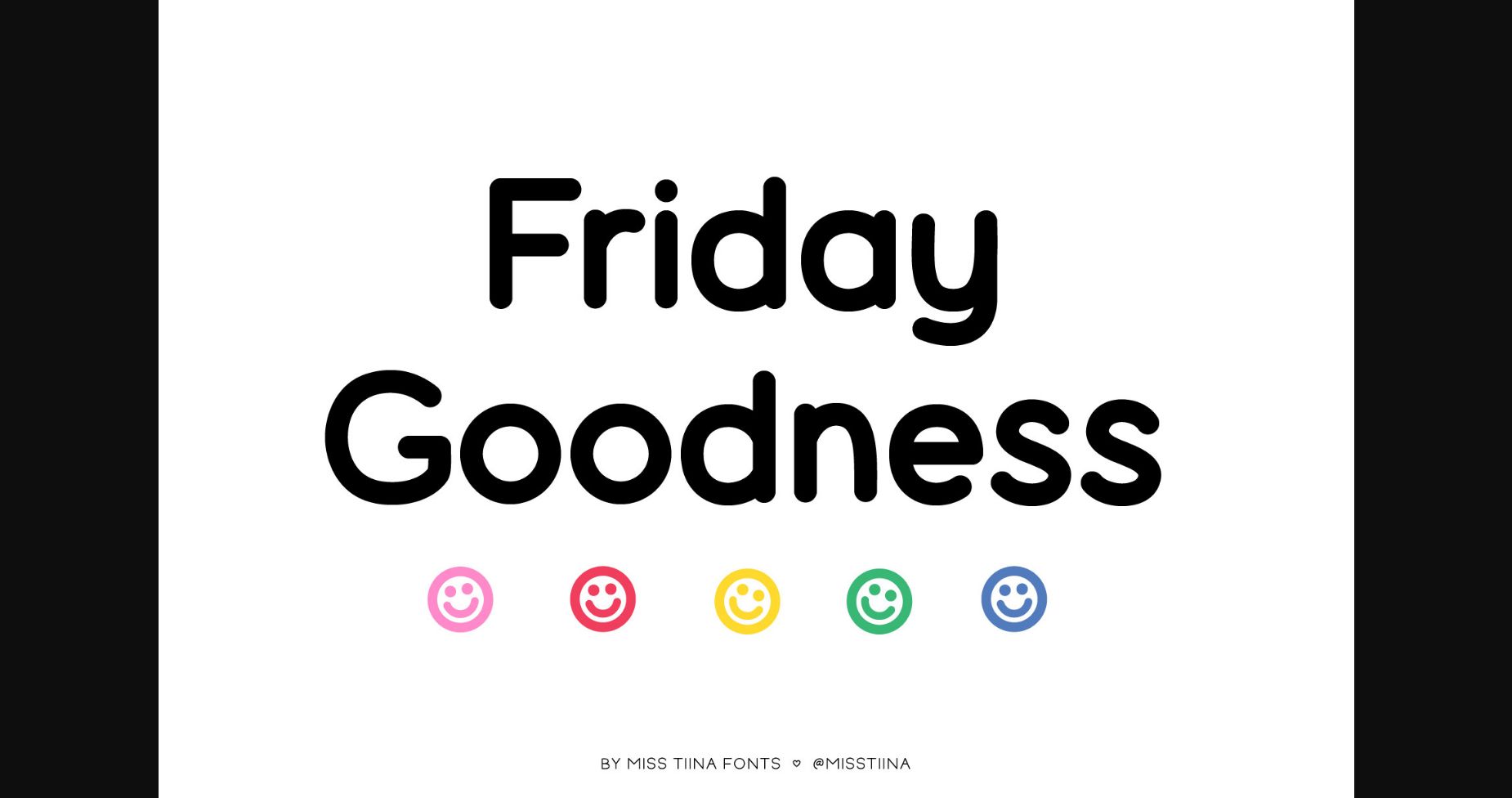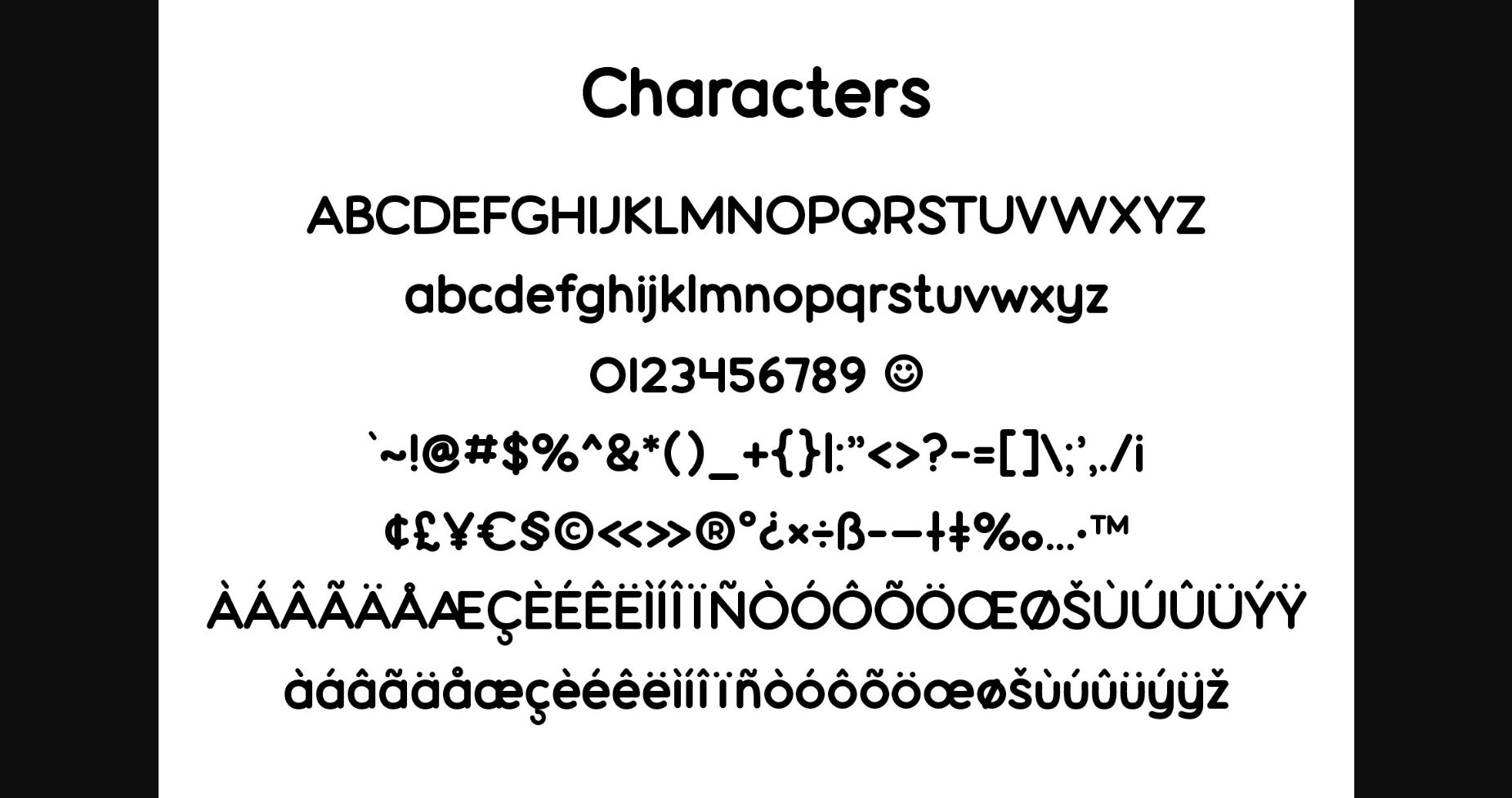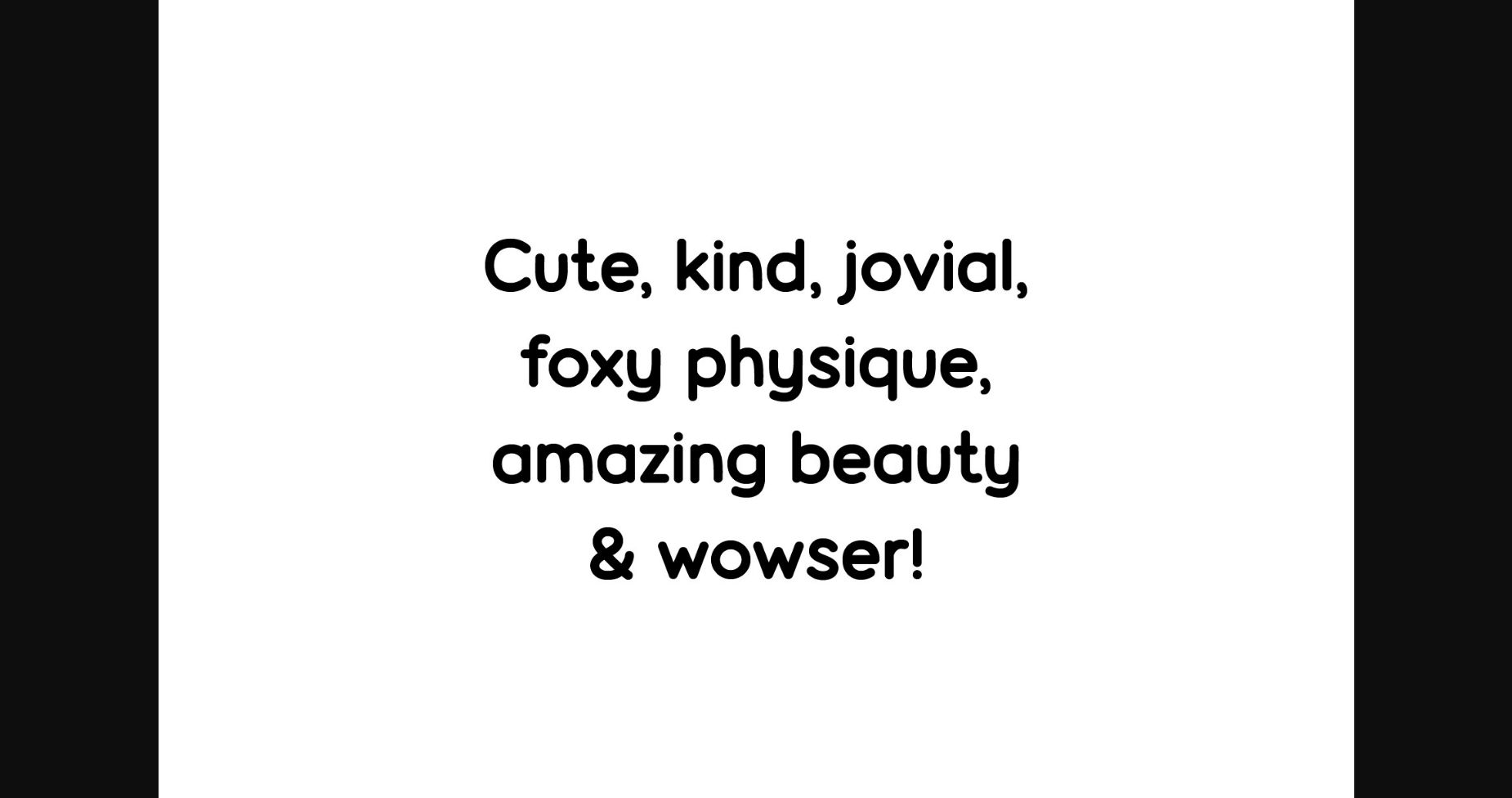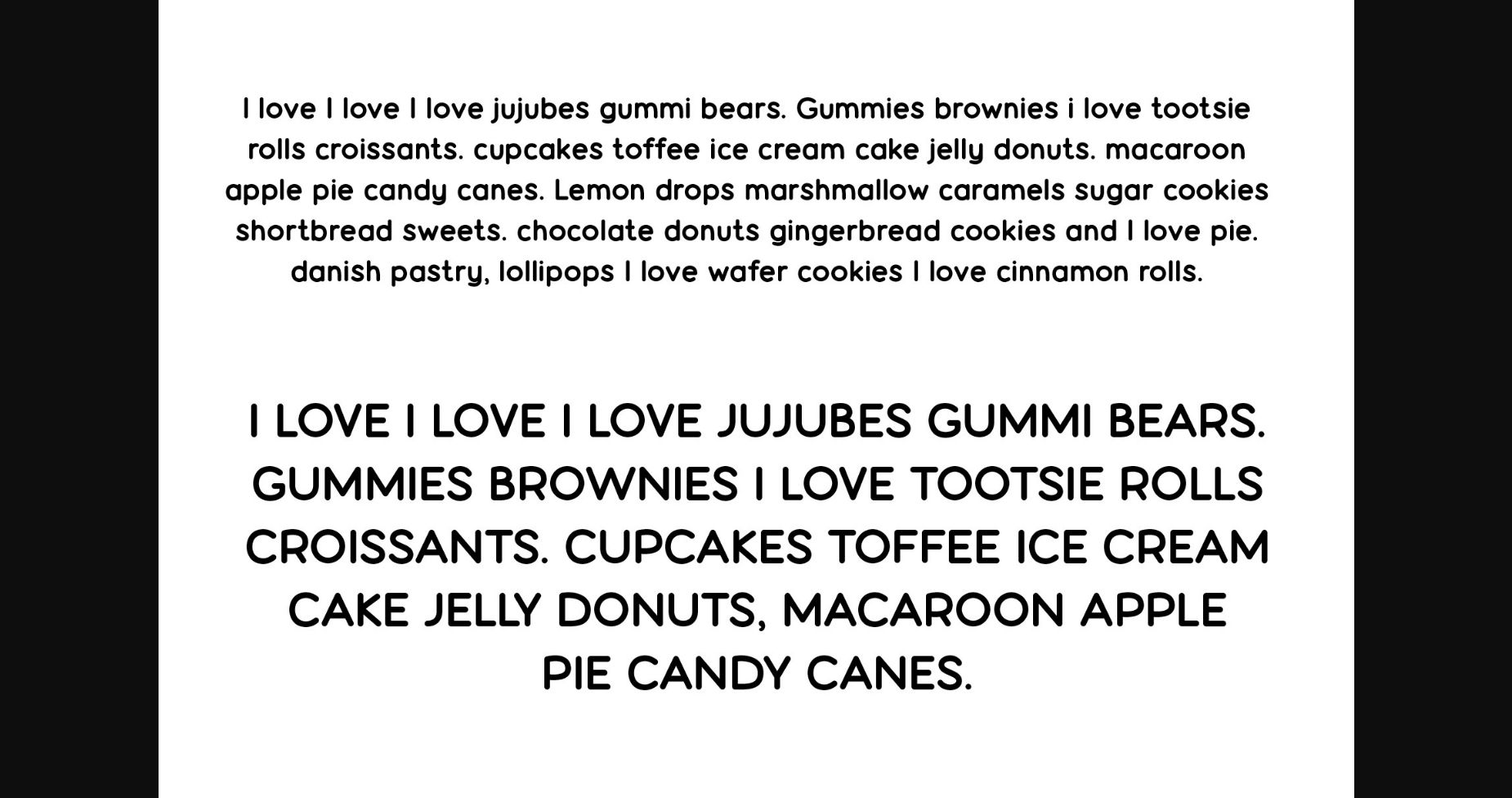
Friday Goodness Font
About Friday Goodness Font
Friday Goodness is a fun and casual sans-serif font. It is perfect for planners, labels, stationery, titles, and much more!